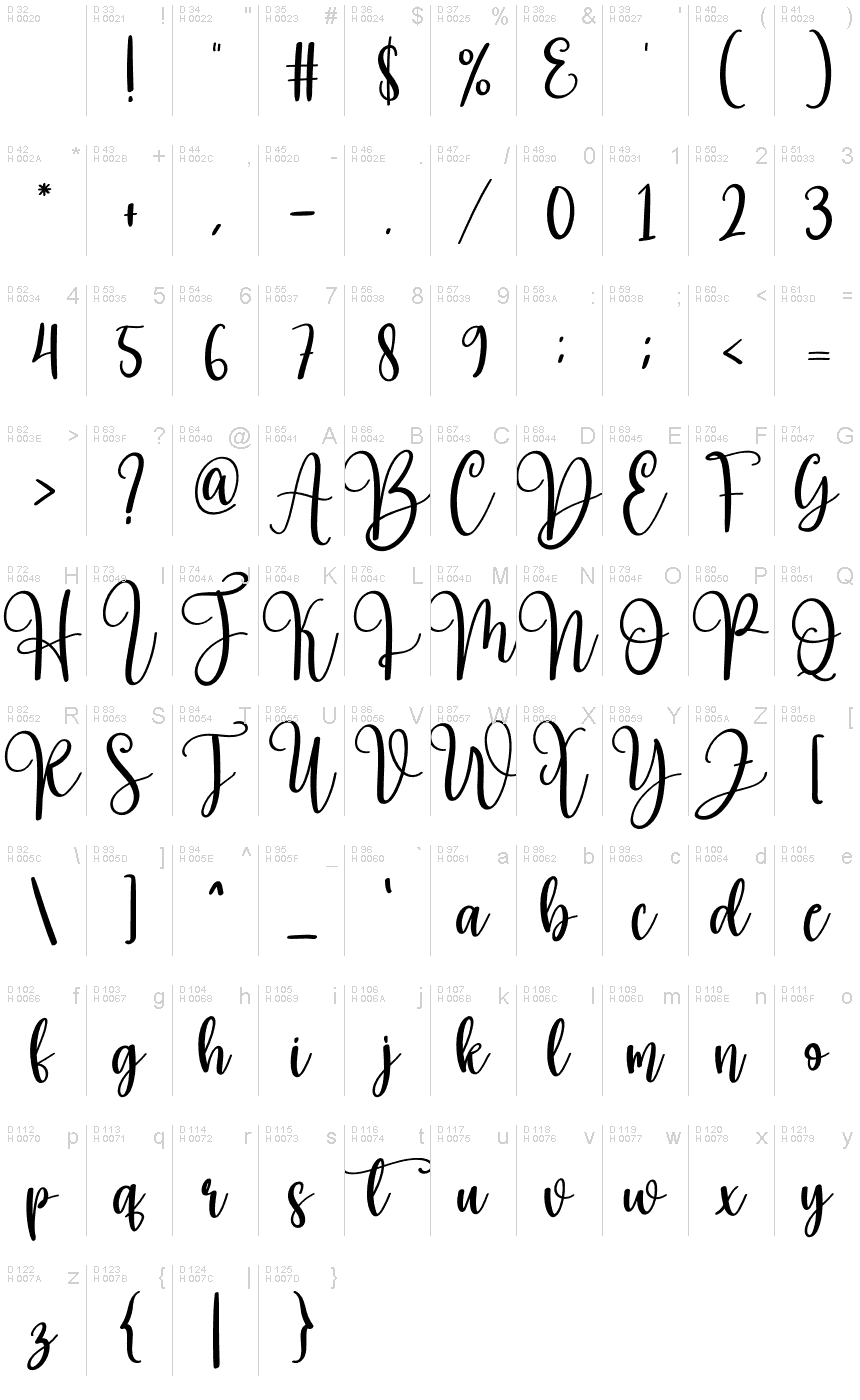
Santa
Santa, a stunning calligraphy semi-light font designed by scratchones, is the perfect typeface for any project that demands elegance and sophistication. Its flowing curves and delicate strokes give it a timeless beauty that is perfect for wedding invitations, greeting cards, and other formal events. But don't let its refined nature fool you – Santa can also add flair to more playful projects such as branding, packaging design, or social media graphics. With its versatile style and effortless charm, Santa is sure to elevate any design project to new heights.
the latest style letters are perfect for wall displays, wedding invitations, social media post logos, advertisements, product packaging, product designs, labels, photography, watermarks, invitations, stationery, and any project that requires taste handwriting.